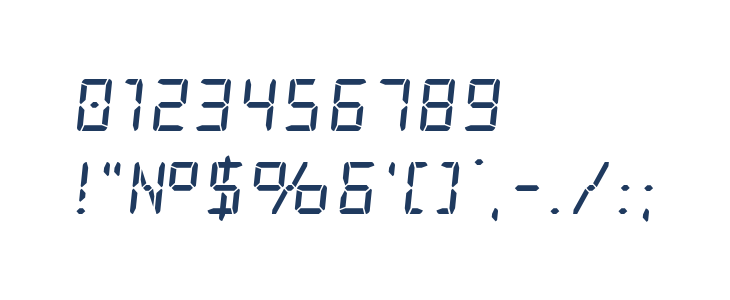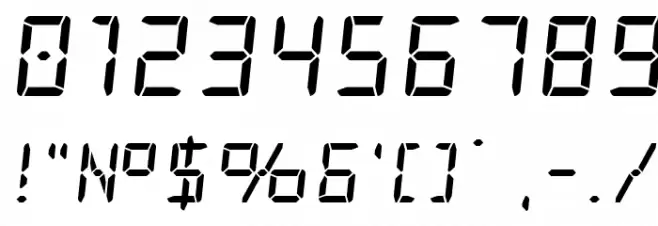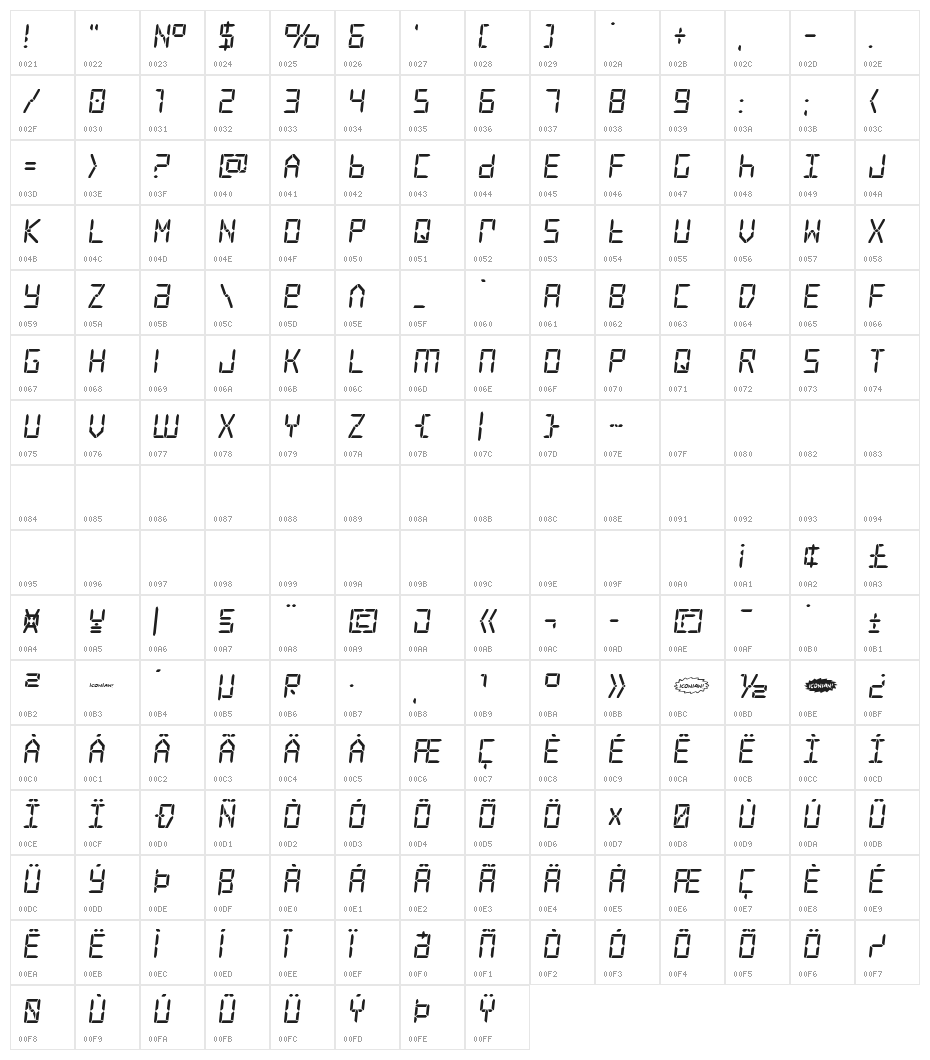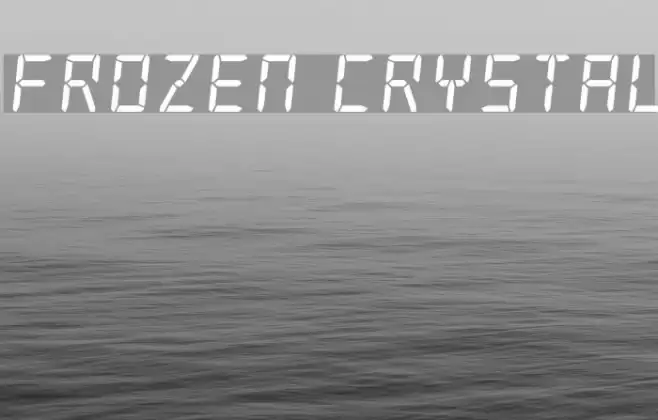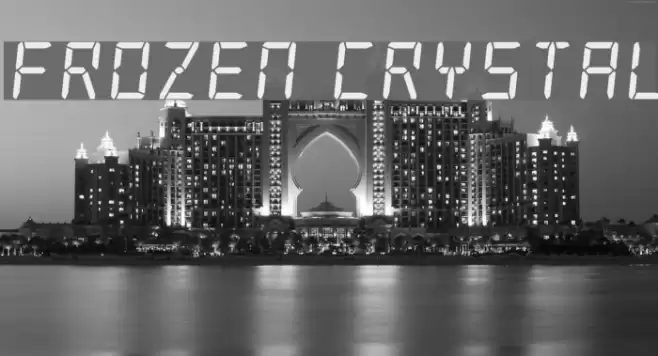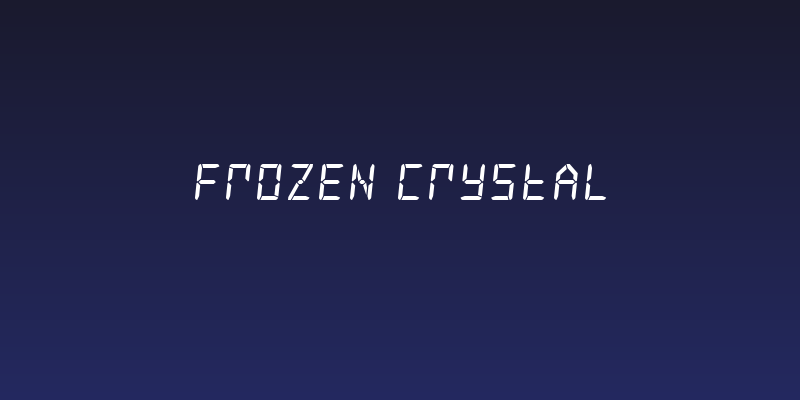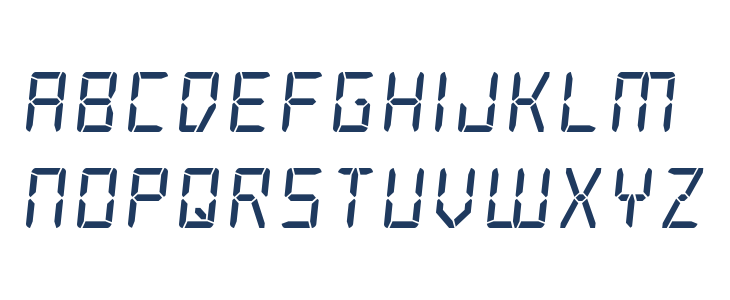
Frozen Crystal Font
Frozen Crystal Description
This font features a digital, segmented style reminiscent of LED displays or digital clocks. Each character is constructed from a series of straight lines and angles, creating a geometric and technical appearance. The uppercase and lowercase letters maintain a consistent height, enhancing the uniformity and readability of the text. Numbers and special characters follow the same segmented design, ensuring a cohesive look across all elements. The font's unique style makes it stand out, ideal for projects that require a modern, tech-oriented aesthetic.
| Use Case | Headlines, Logos, Digital displays |
| Proposed Projects | Ideal for digital interfaces, tech-themed designs, futuristic branding, and electronic device displays. |